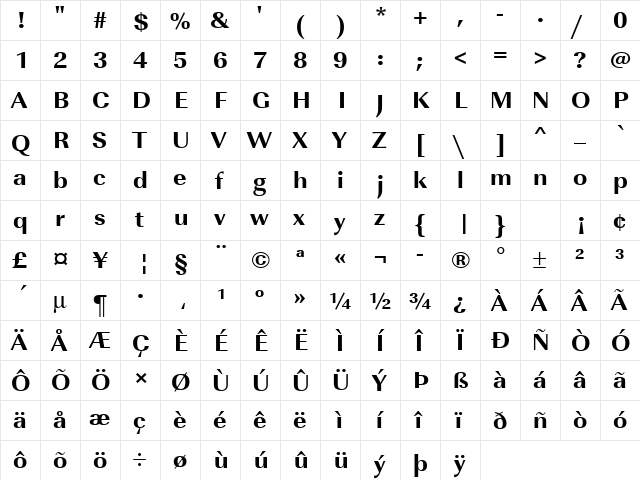
URWImperialTExtBolWid Regular
Design Context for URWImperialTExtBolWid Typeface
URWImperialTExtBolWid offers clean, dependable letterforms without strong stylistic allegiance, making it a practical choice for designers who need flexibility.
Pro Tip: Use URWImperialTExtBolWid in both headline and body roles to test its range before committing to a single application.